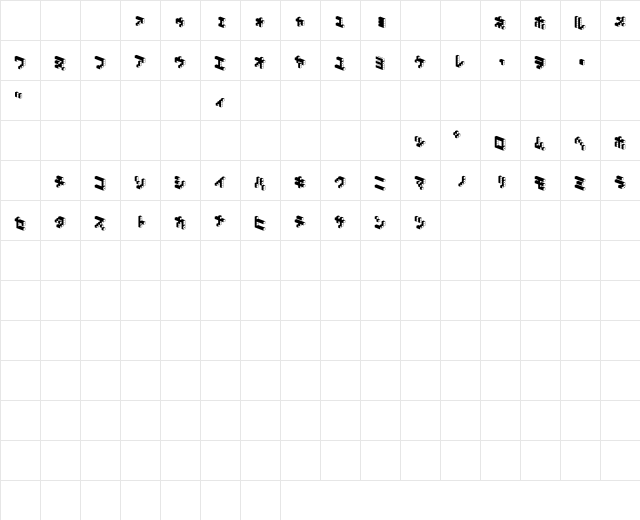
DemonCubicBlock NKP Dark Regular
Design Context for DemonCubicBlock NKP Dark
DemonCubicBlock NKP Dark is a composed and adaptable typeface that performs quietly and consistently across a wide range of design contexts.
Pro Tip: Use DemonCubicBlock NKP Dark in both headline and body roles to test its range before committing to a single application.